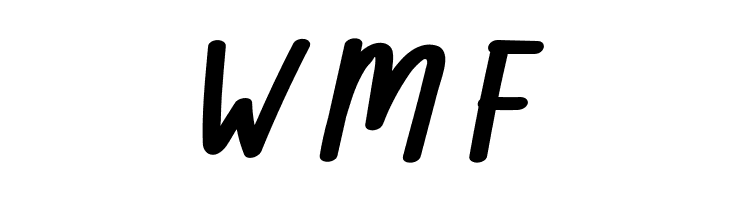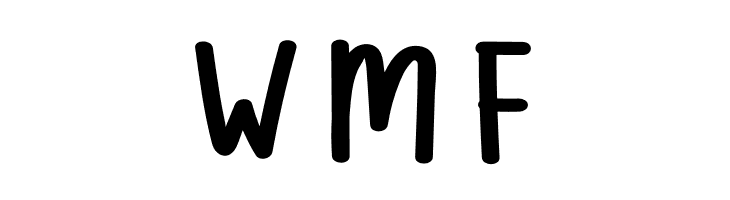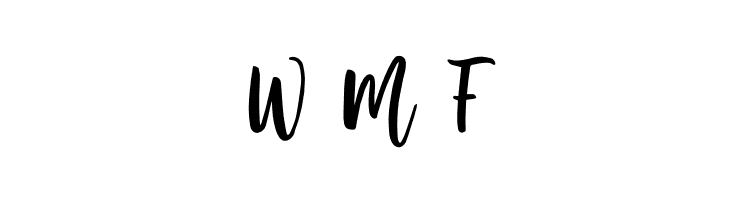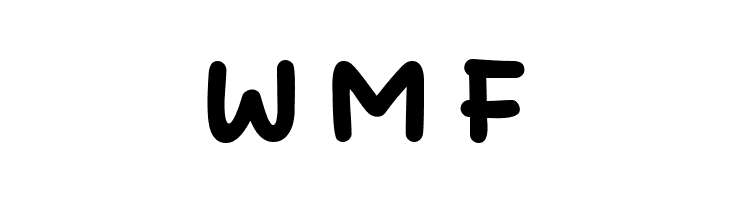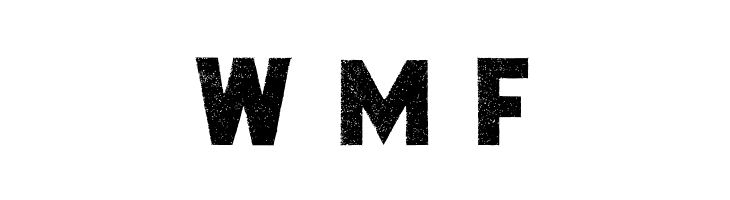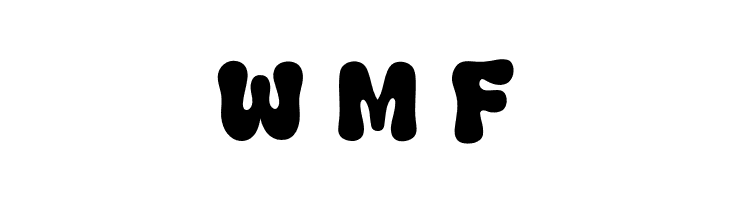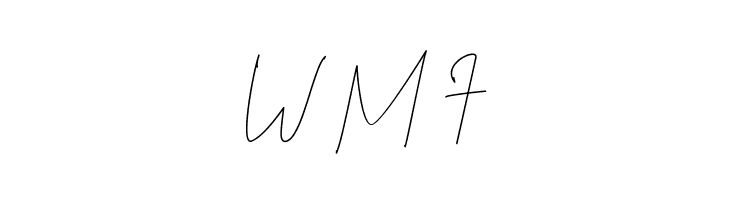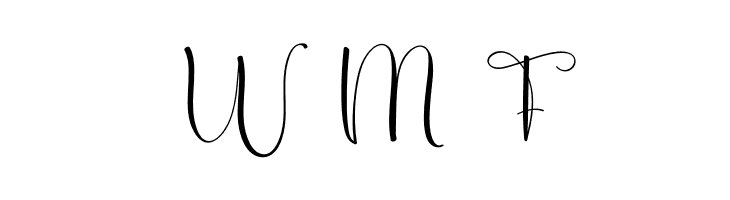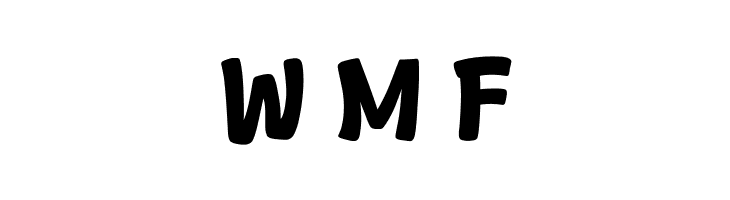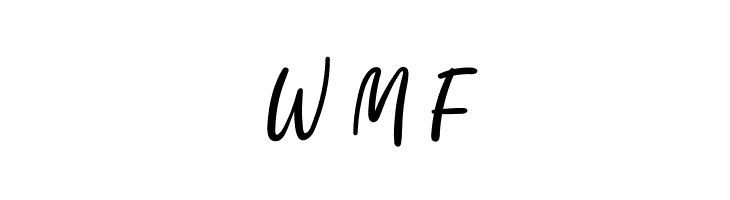
A playful, handwritten font with bold, rounded letters and a slight slant.
A playful, hand-drawn font with bold, rounded characters perfect for fun and creative projects.
A playful, rounded font ideal for children's materials.
A playful, rounded font perfect for children's projects and fun designs.
A bold, flowing script font with an elegant, handwritten style.
A playful, rounded font perfect for children's content.
A bold, modern sans-serif font with a clean and structured design.
A bold, distressed font with a rugged, vintage feel.
A bold, angular font with a strong, modern aesthetic.
A playful, handwritten-style font with a casual and friendly vibe.
A playful, bold typeface with rounded edges, ideal for children's projects.
A bold, playful font with rounded edges and a vintage feel.
A dotted line font perfect for educational and children's projects.
A bold, playful font with a dotted texture and cartoonish style.
A bold, distressed font with a rugged, vintage aesthetic.
A playful, bold font with rounded, bubbly characters.
A bold, wavy, and playful font with a decorative style.
A bold, playful font with rounded, bubble-like characters.
A bold, playful font with thick, rounded characters and a bubbly appearance.
A playful, bold, and bubbly font perfect for children's materials.
A playful, bold font with rounded edges and a friendly appearance.
A bold, playful handwritten font with dynamic and irregular letterforms.
A playful, handwritten font with bold, rounded strokes and a dynamic slant.
A bold, geometric font with a futuristic, digital aesthetic.
A modern, elegant handwritten font with fluid strokes and a dynamic slant.
A playful, handwritten-style font with bold, rounded characters.
A whimsical, elegant cursive font with intricate loops and flourishes.
A playful, bold font with rounded edges and a hand-drawn look.
A bold, rounded font with a playful and robust style.
A bold, playful font with rounded, bubbly characters perfect for retro designs.
Bold, rounded, and playful font.
Bold, playful handwritten font.
Casual handwritten script font.
Playful handwritten font with rounded edges.
Elegant, handwritten script with smooth, connected strokes.